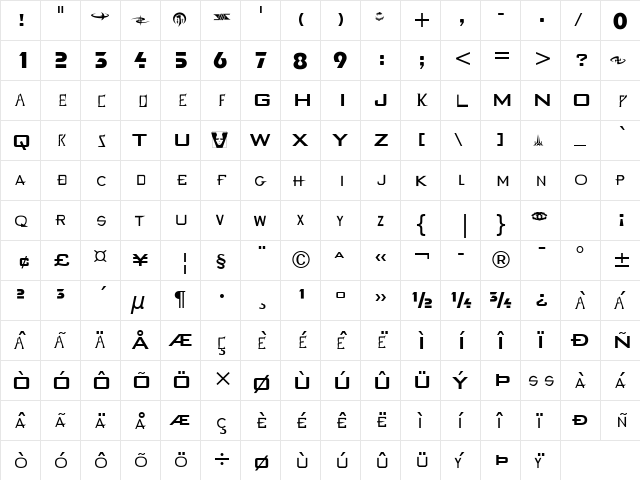
Freespace Font Medium
Design Context for Freespace Font Typeface
Freespace Font offers clean, dependable letterforms without strong stylistic allegiance, making it a practical choice for designers who need flexibility.